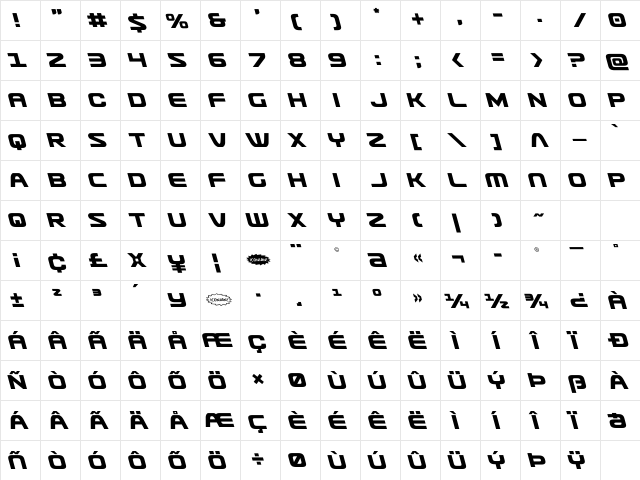
Usuzi Leftalic Italic
Design Context for Usuzi Leftalic Typeface
Usuzi Leftalic offers clean, dependable letterforms without strong stylistic allegiance, making it a practical choice for designers who need flexibility. Its italic angle brings a sense of urgency and motion to the letterforms.
Pro Tip: Use Usuzi Leftalic for emphasis, pull quotes, and subheadings where its slanted energy can add rhythm to the layout.